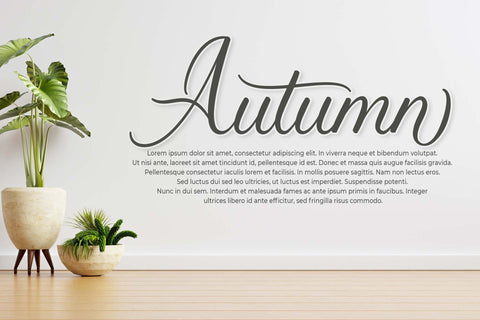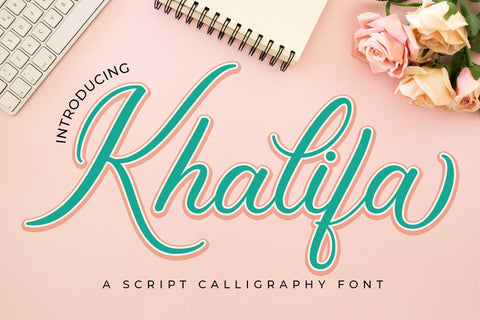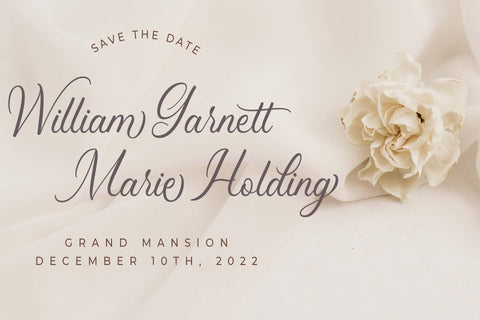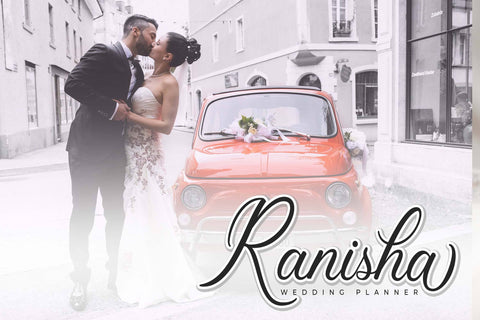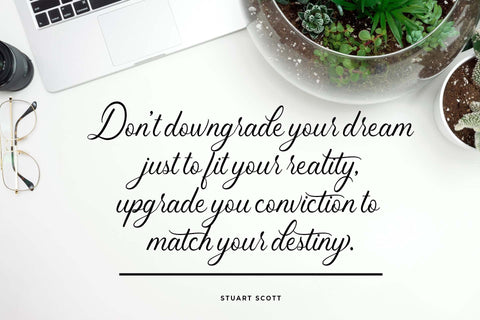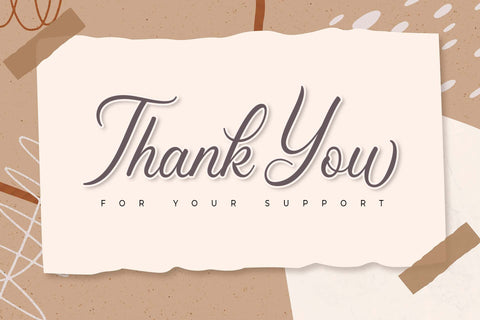
Khalifa
Khalifa is a modern script font. Every letter has been carefully crafted to make your text look beautiful with an elongated connection model.
Its modern script style is perfect for weddings, invitations, greeting cards, posters, business cards, quotes, blog headers, branding, logos, fashion, clothing, letters, stationery, and much more!